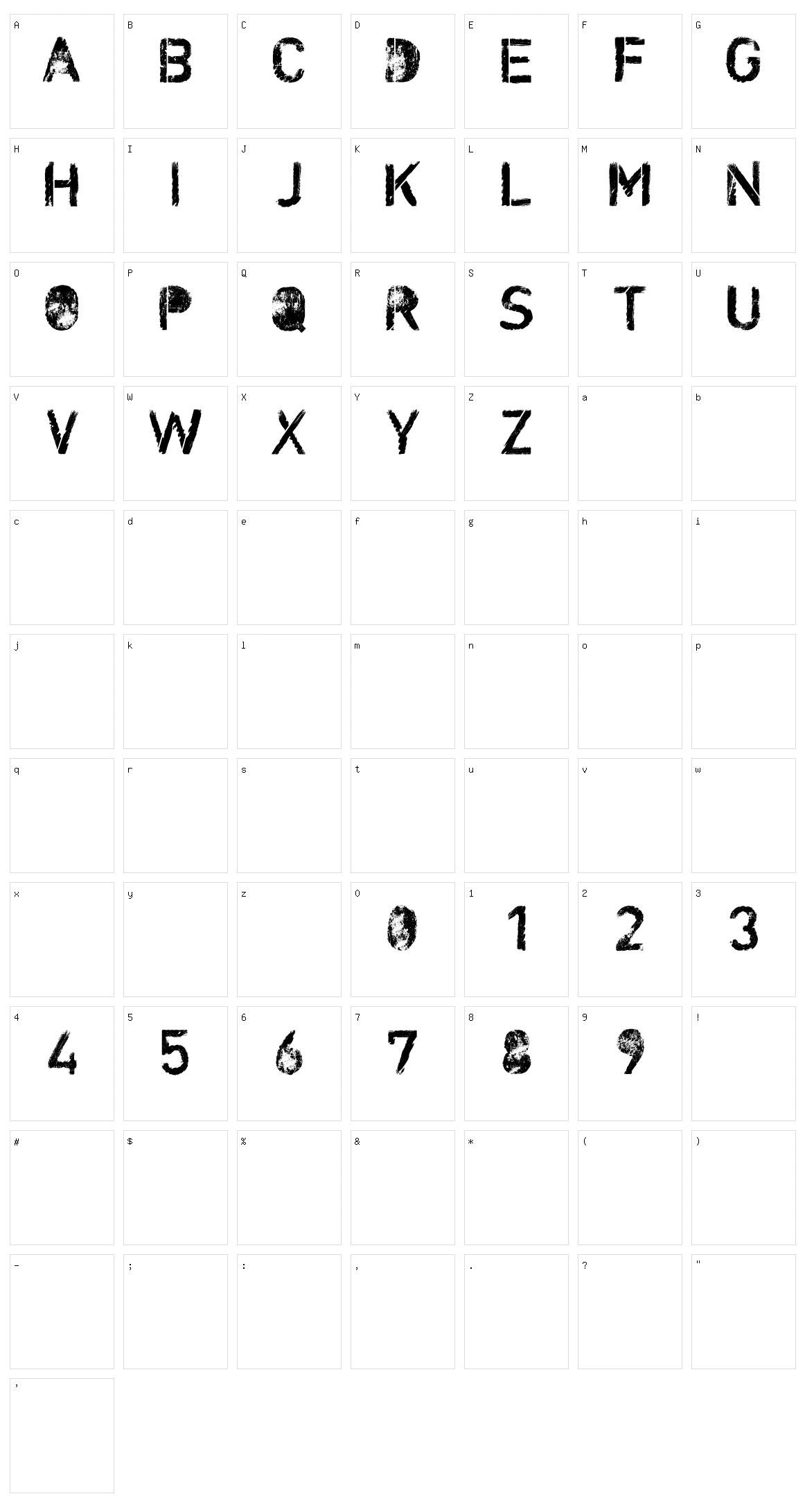
The free font CF Nuclear War is carefully designed by Cloutierfontes, showcasing a thoughtful balance of creativity and usability and falls under the Destroy font style. When you download the ZIP file, it contains only 476.21 KB of font files, making it lightweight and quick to download. Please review the license details below to understand permitted usage and distribution rights. If license information is not available, we recommend using this font for personal projects only or contacting the author directly for commercial usage permissions.